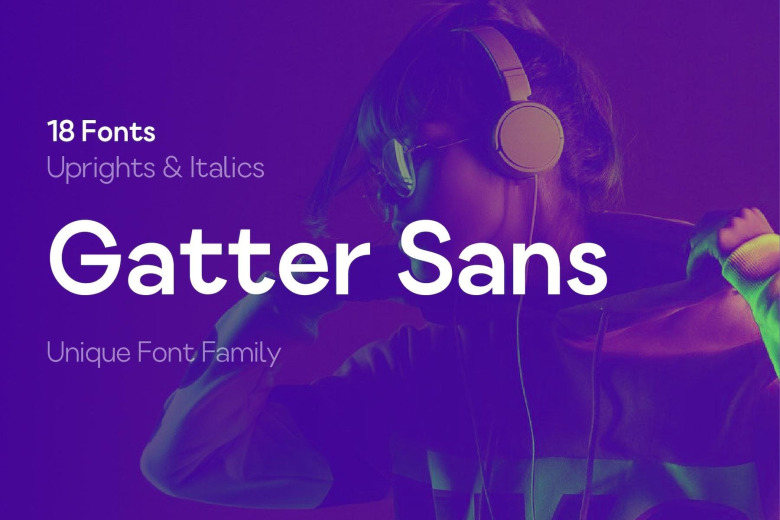
Gatter Sans Font
Gatter Sans Font is a new contemporary sans serif, influenced by grotesque and geometric typeface letterforms. Thanks to the crowd family, it will give you a great advantage in your poster works. You can also benefit from this creative and original family for your digital designs, ui/ux applications, and corporate identities.